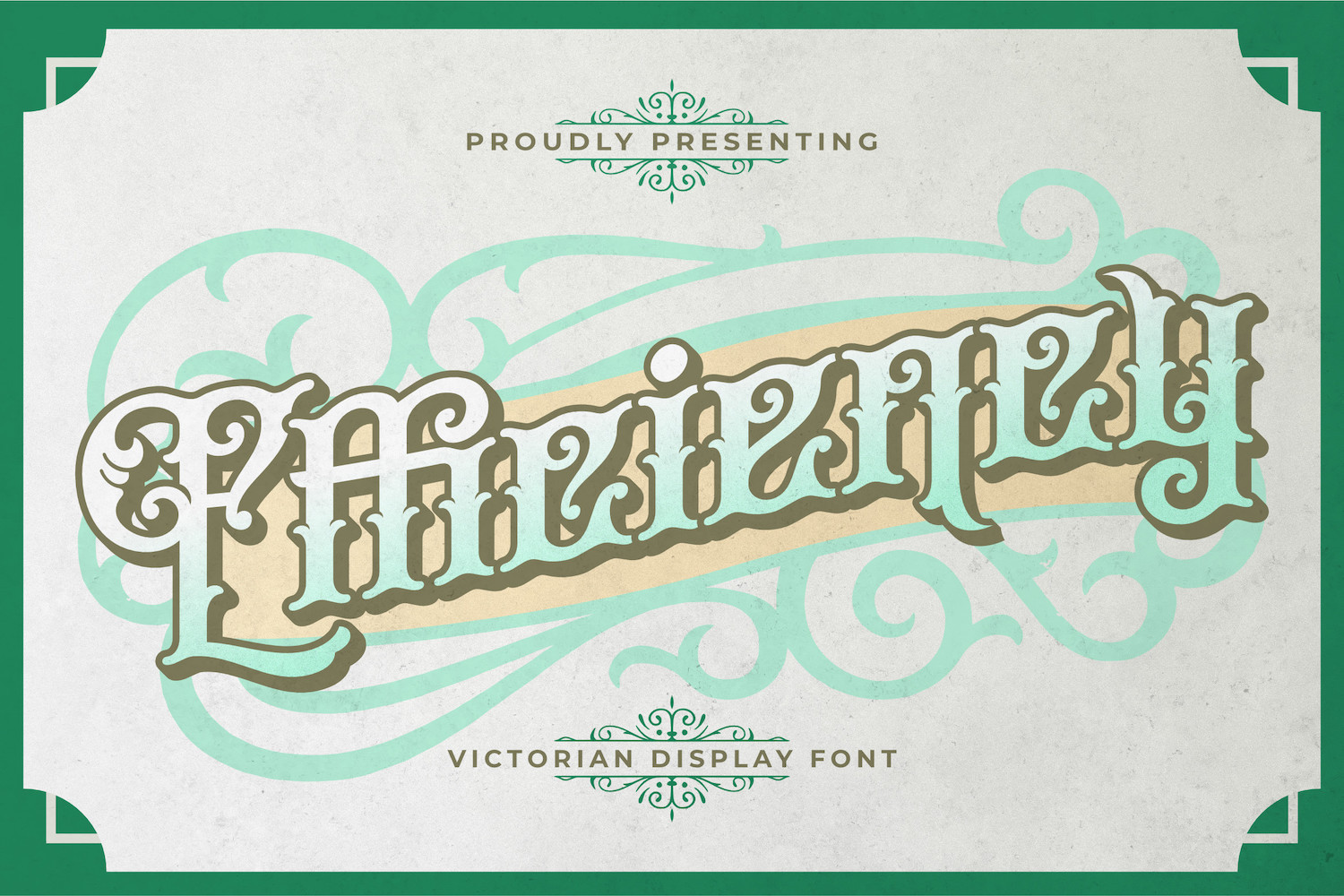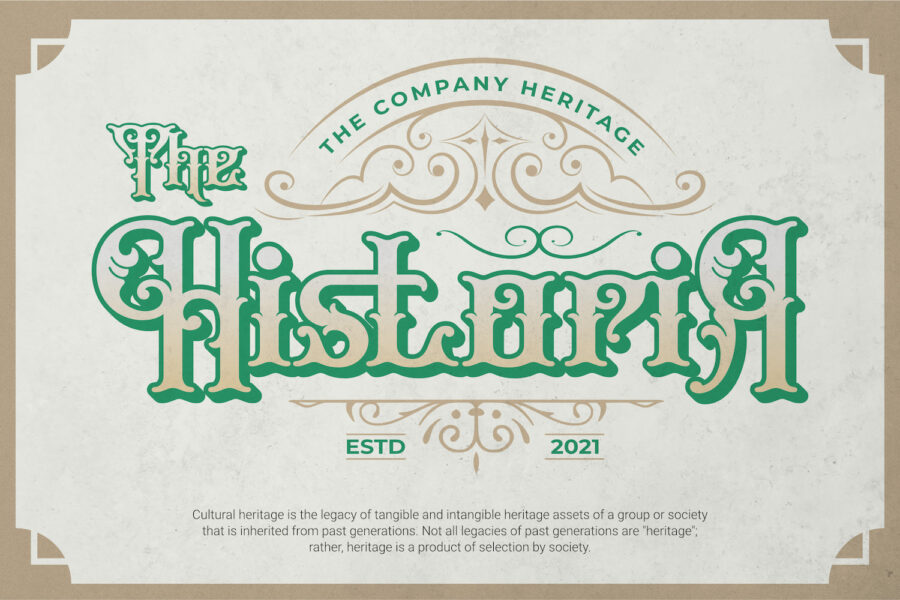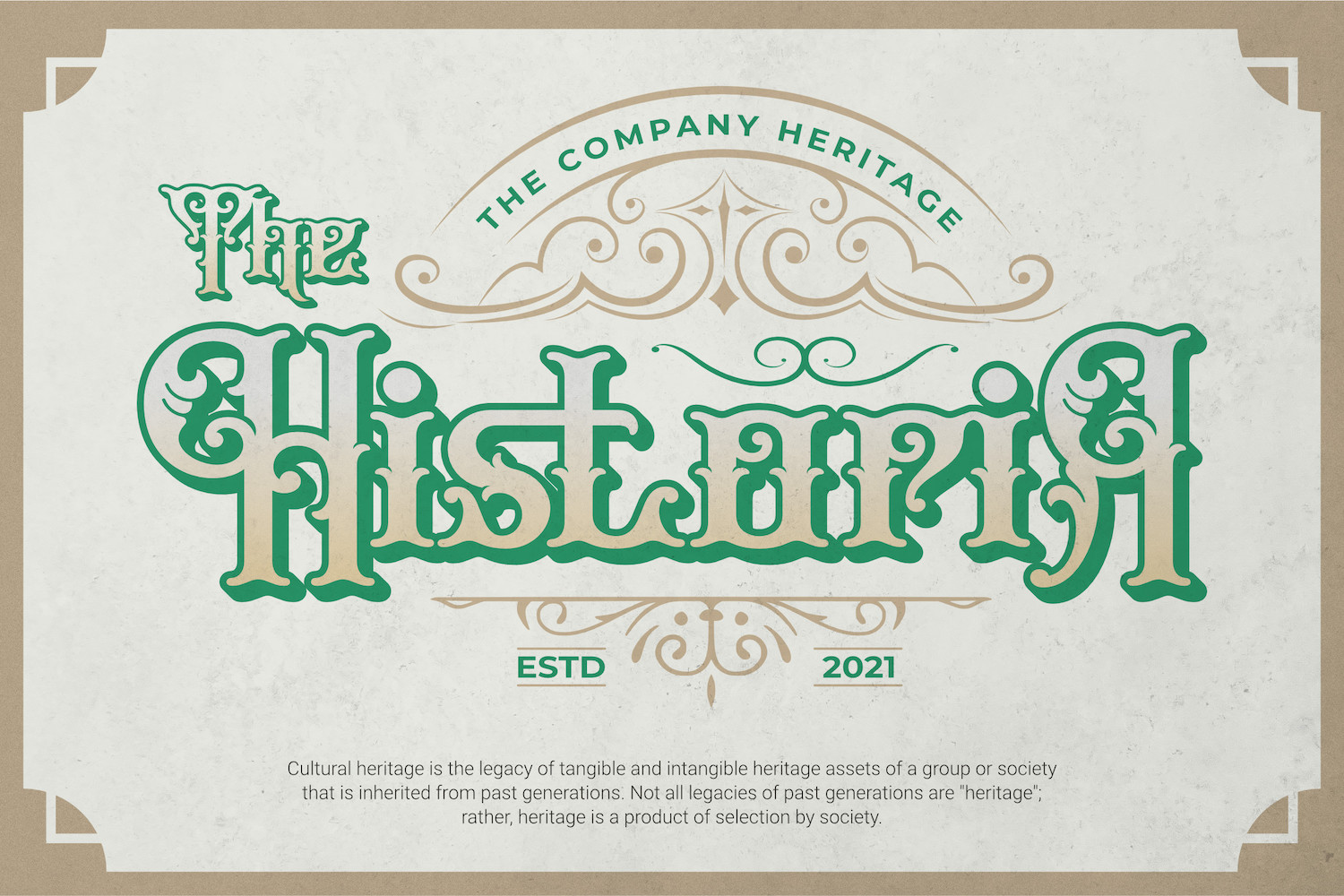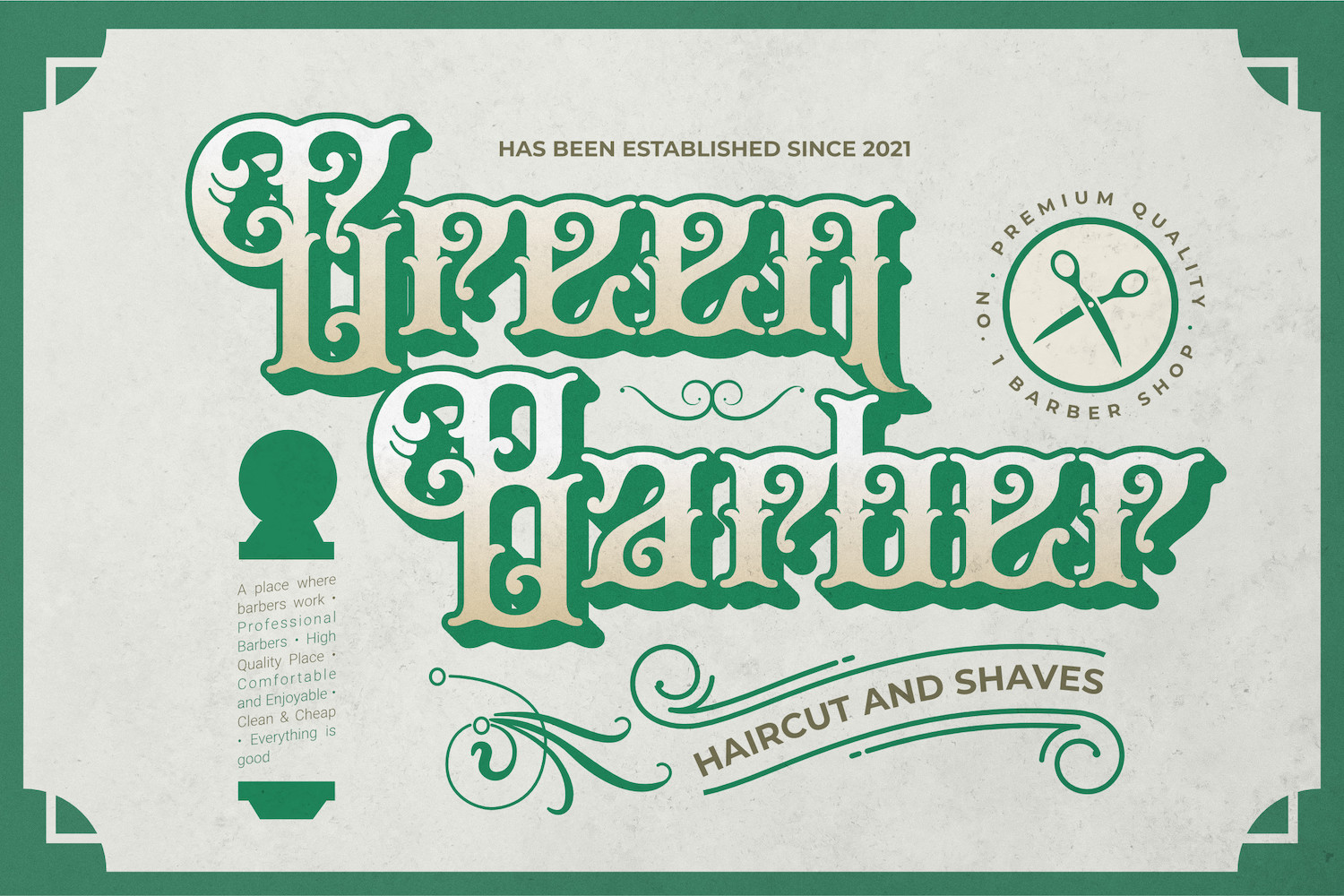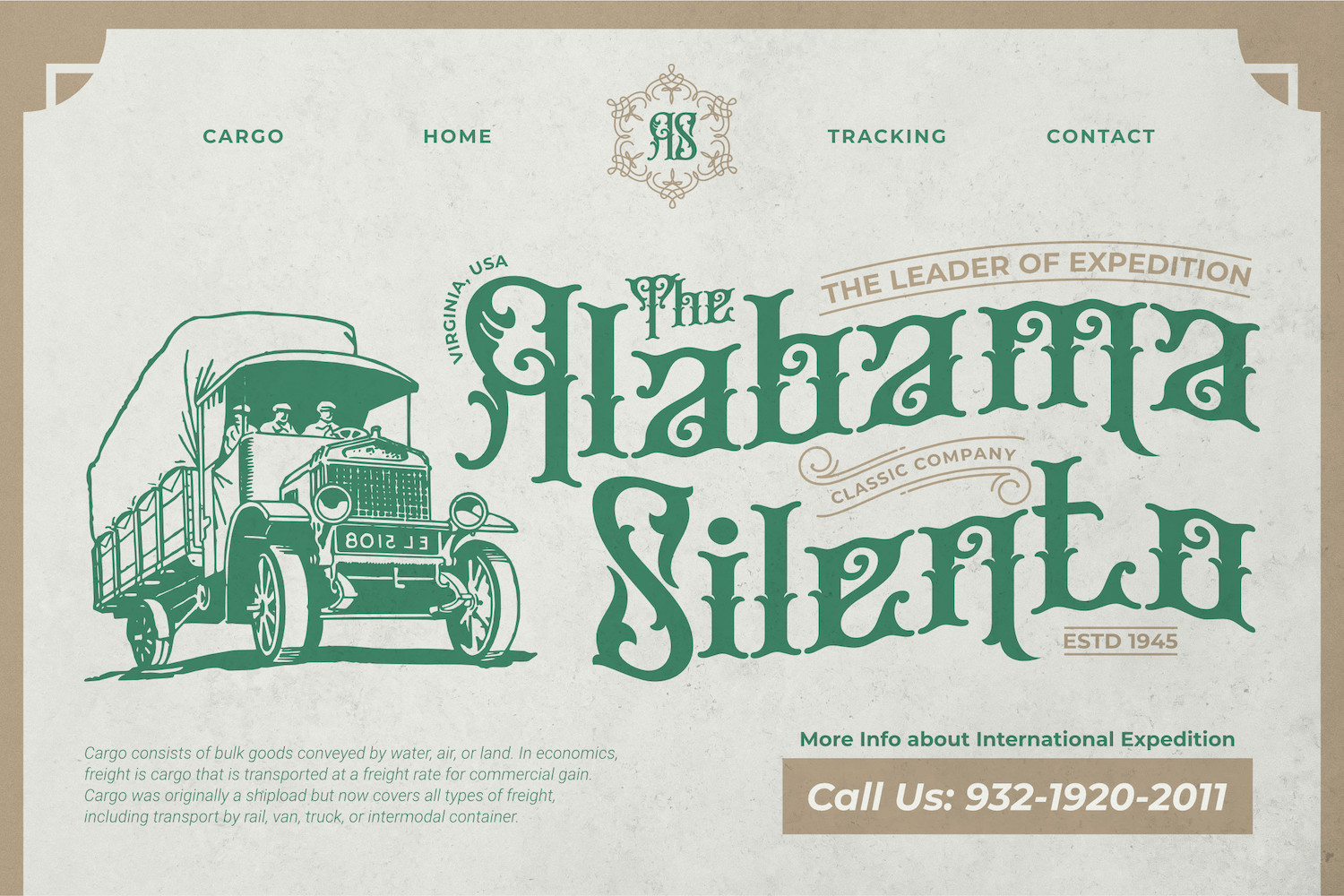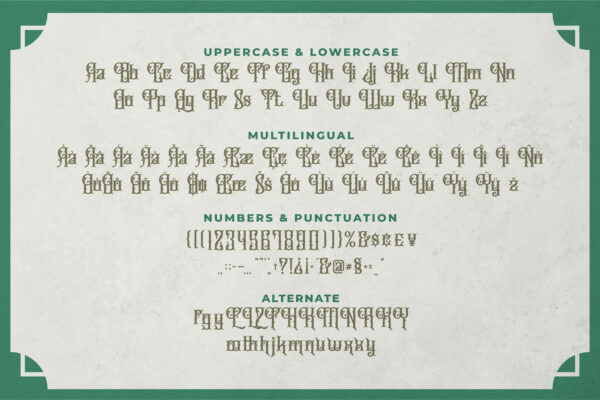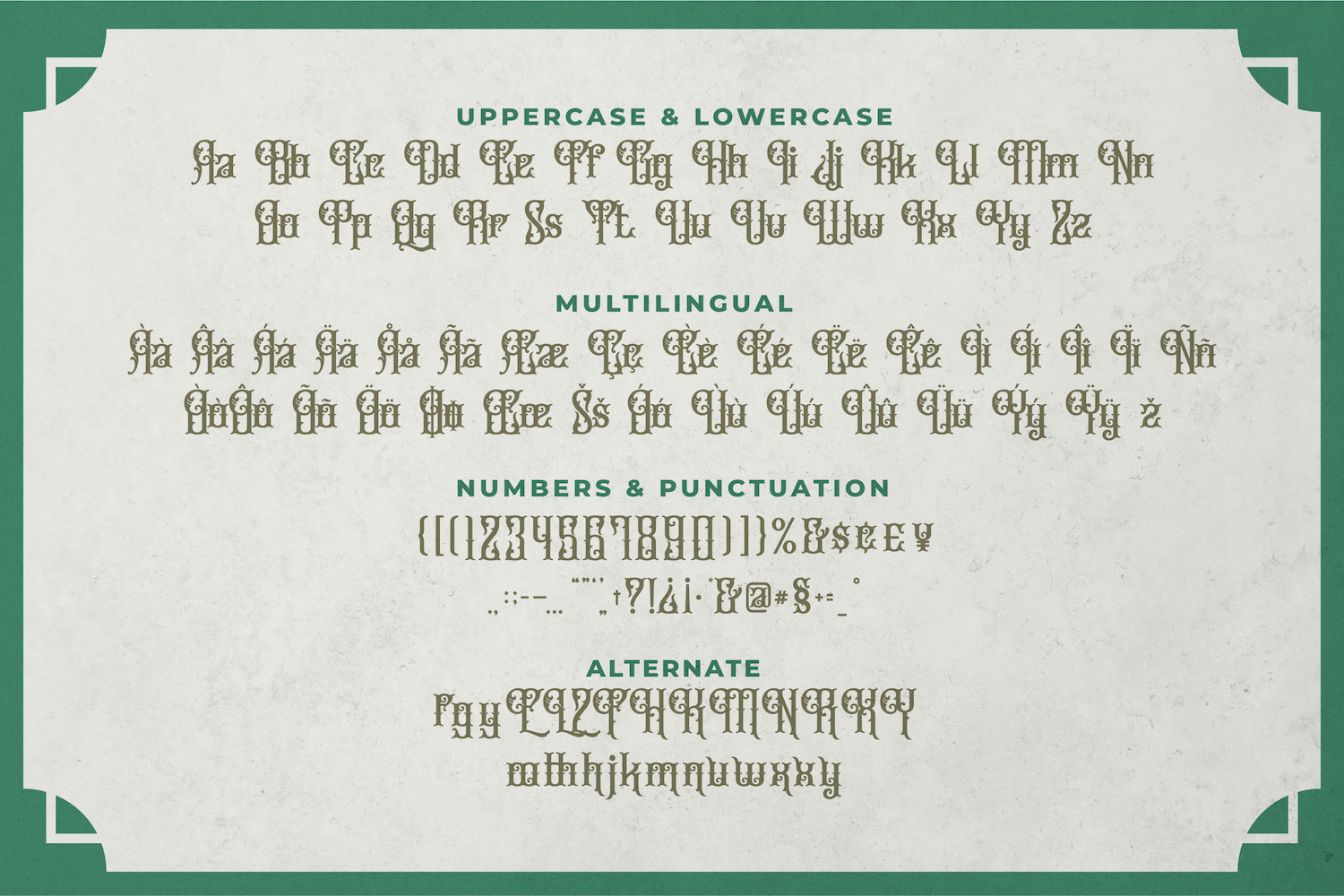
Efficiency is a bold and ornate Victorian display font that revives the opulence of classic heritage typography. With its intricate letterforms, dramatic swashes, and layered textures, Efficiency captures the essence of vintage elegance and artisanal design. Perfect for branding, signage, packaging, or editorial use, this typeface brings a sophisticated touch to any creative project rooted in nostalgia.
Complete with uppercase, lowercase, multilingual support, punctuation, and a unique set of stylistic alternates, Efficiency is crafted to deliver impact and authenticity. Whether you’re designing for barber shops, whiskey labels, or antique-inspired websites, this font adds a powerful visual presence with refined historic charm.
Efficiency